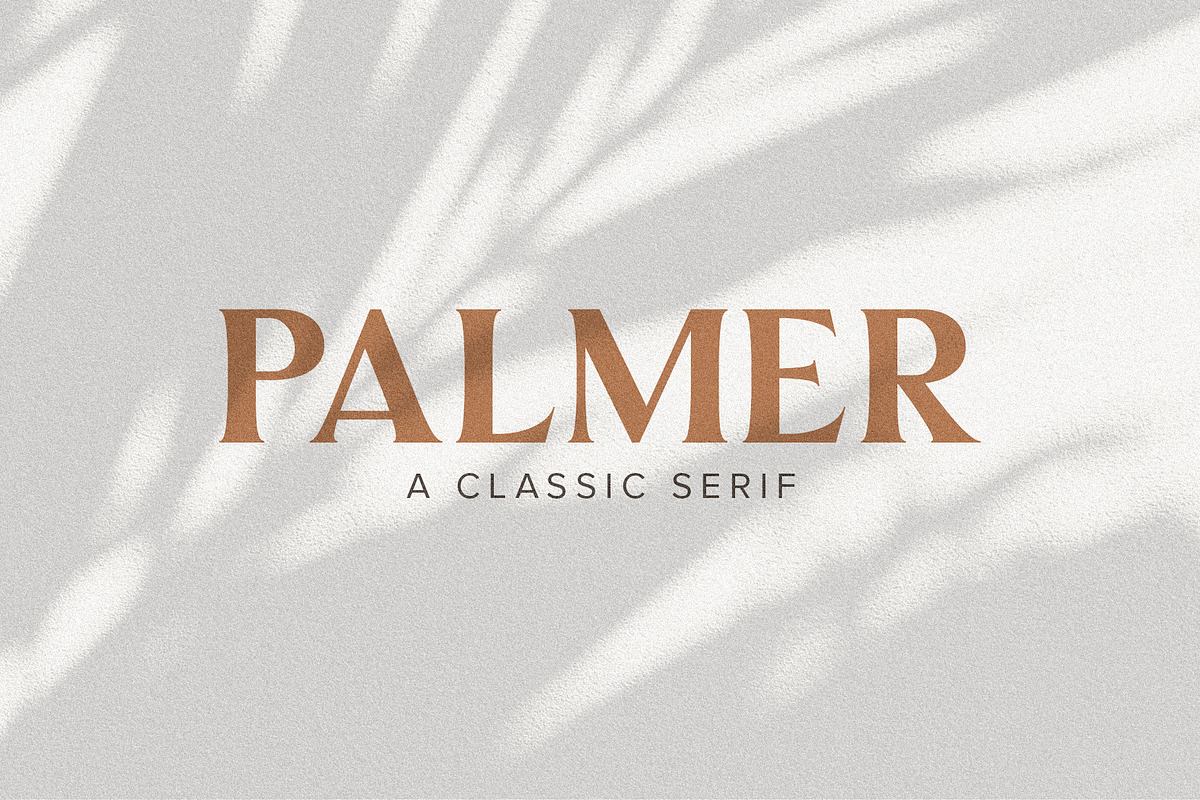
Palmer | A Classic Serif Font Free Download is a timeless and refined typeface designed to bring elegance, clarity, and professionalism to your work. Please note, you are required to purchase this font for commercial use. It is available for free download for testing and personal projects only.
With its balanced proportions, sharp serifs, and graceful letterforms, Palmer is ideal for editorial design, branding, book covers, wedding invitations, and upscale marketing materials. It combines traditional serif aesthetics with modern usability, ensuring your typography feels both classic and current.